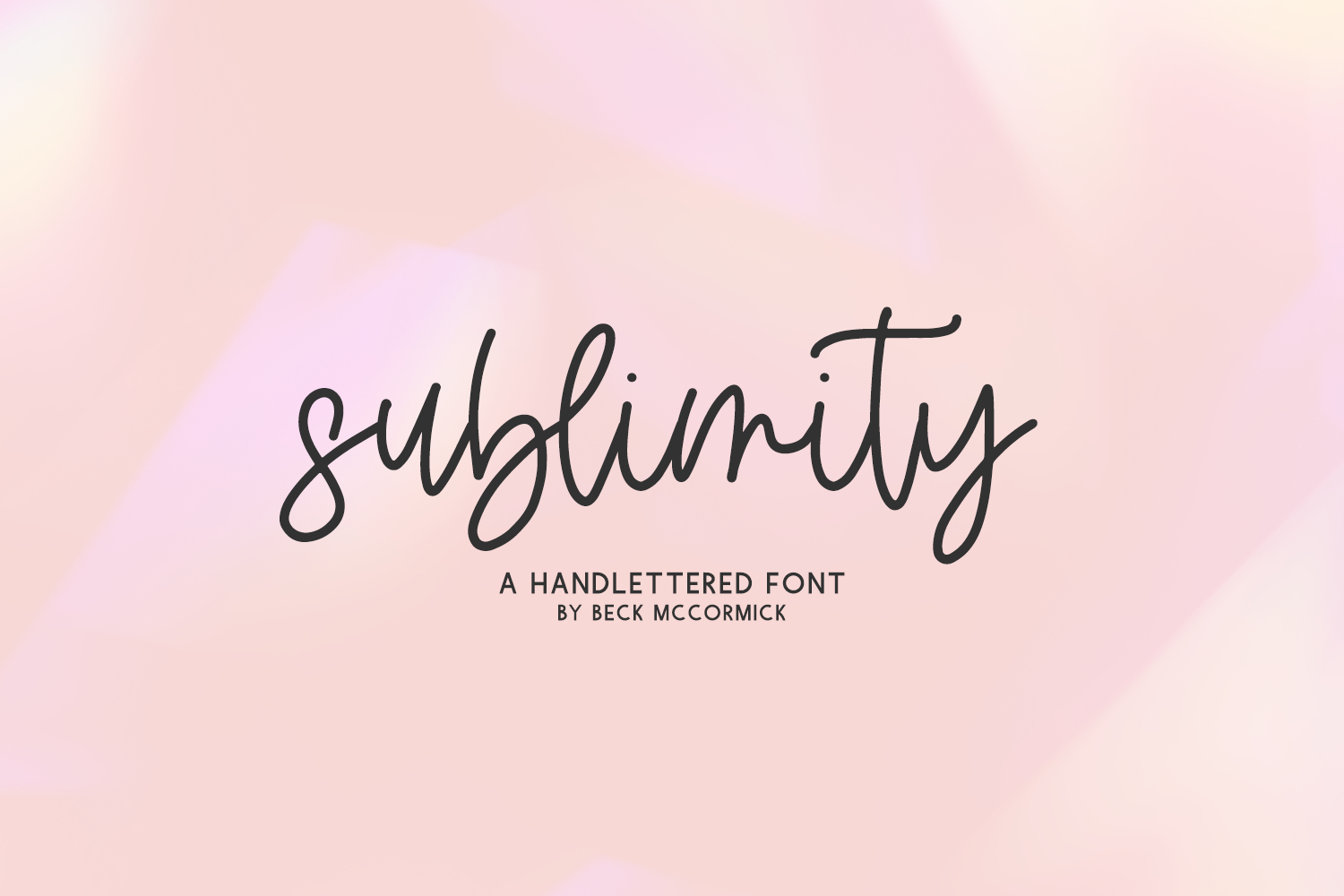
Introducing Sublimity Script, a bouncy monoline script.
Sublimity Script is best for:
- feminine, crafty projects with your Cricut or Silhouette machine, or your SVG design business
- farmhouse decor and crafts
- digital planners & apps like Goodnotes
- website design + website accents, blog design
- feminine graphic tee shirt design & other apparel